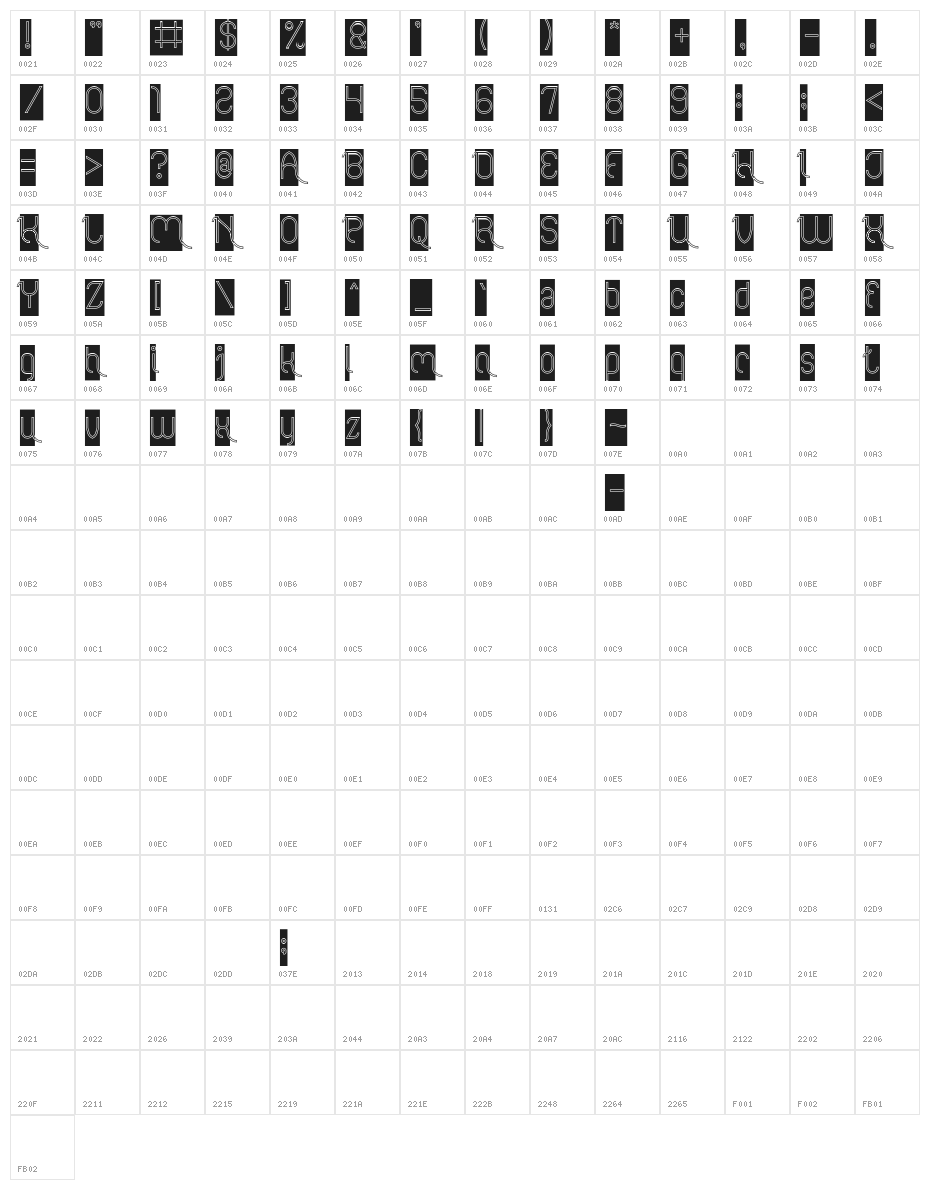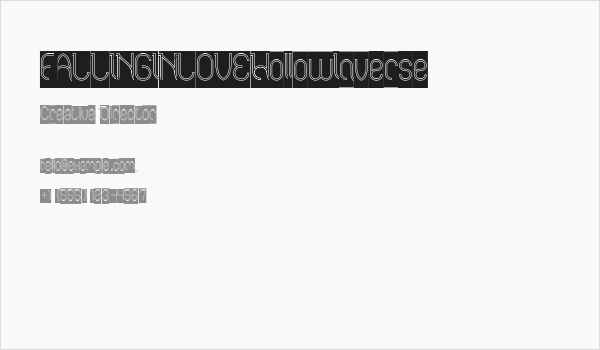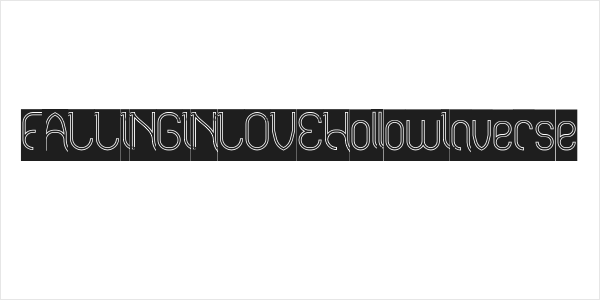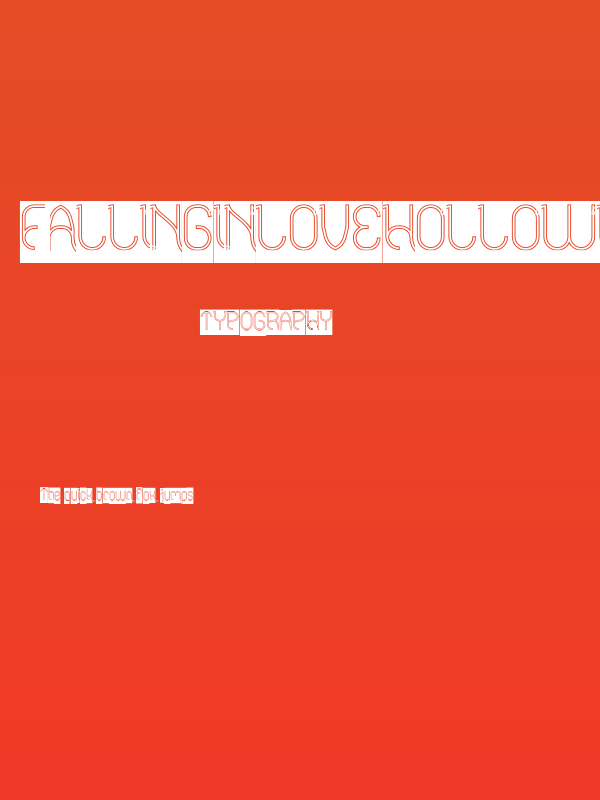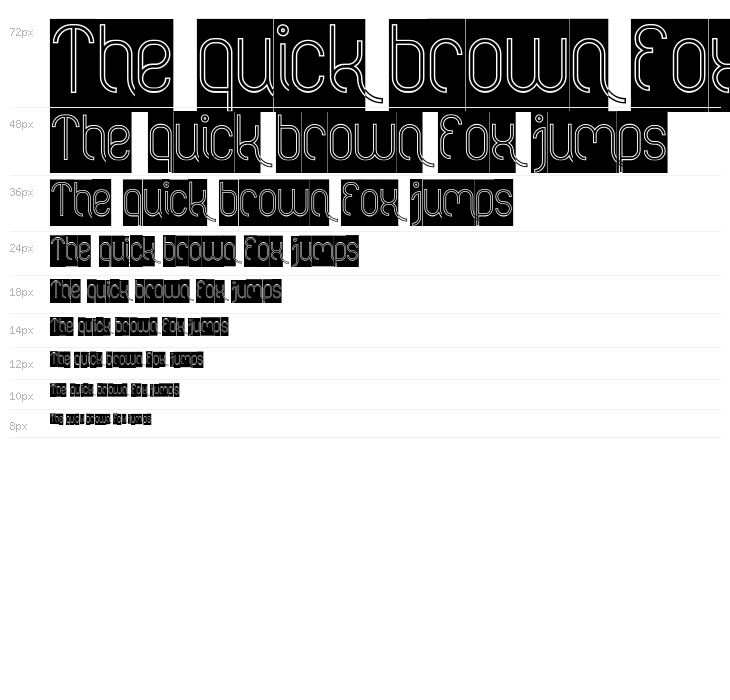
FALLINGINLOVEHollowInverse Font
FALLINGINLOVEHollowInverse Description
This font features a unique hollow design with an inverse style, creating a striking visual effect. The characters are outlined with a consistent stroke, giving them a modern and futuristic appearance. The uppercase and lowercase letters maintain a cohesive look, with smooth curves and sharp angles that add a dynamic feel. The numerals and special characters follow the same design principles, ensuring uniformity across all glyphs. The font's distinct style makes it ideal for creative and bold design projects where a standout typeface is desired.
| Proposed Projects | Ideal for branding, posters, album covers, and digital artwork where a bold and creative typeface is needed. |